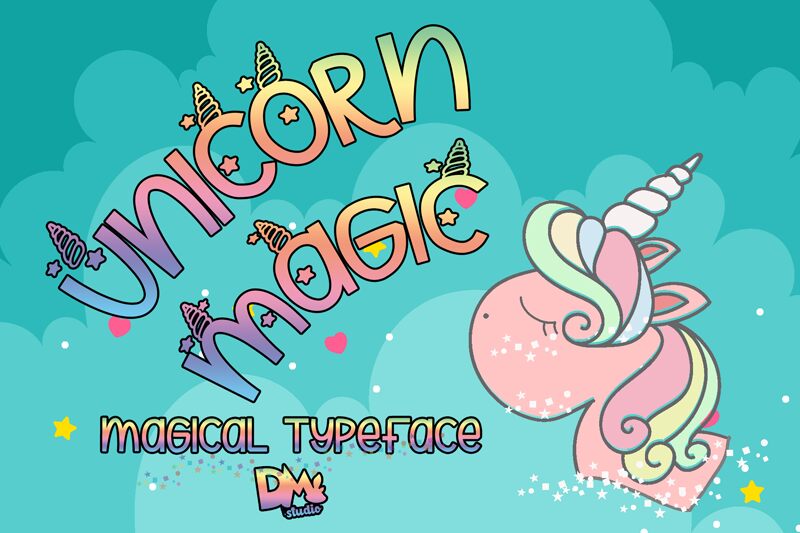
Unicorn Magic, a whimsical display font by Dm Letter Studio, adds a touch of enchantment to any project.
With its decorative style and semi-light weight, this font is perfect for creating eye-catching headlines, invitations, and posters that exude a magical aura. Its playful curves and intricate details capture the essence of fantasy and make it suitable for children's books, greeting cards, party decorations, and even logo designs for businesses seeking a touch of imagination.
Let Unicorn Magic bring your creations to life with its spellbinding charm.